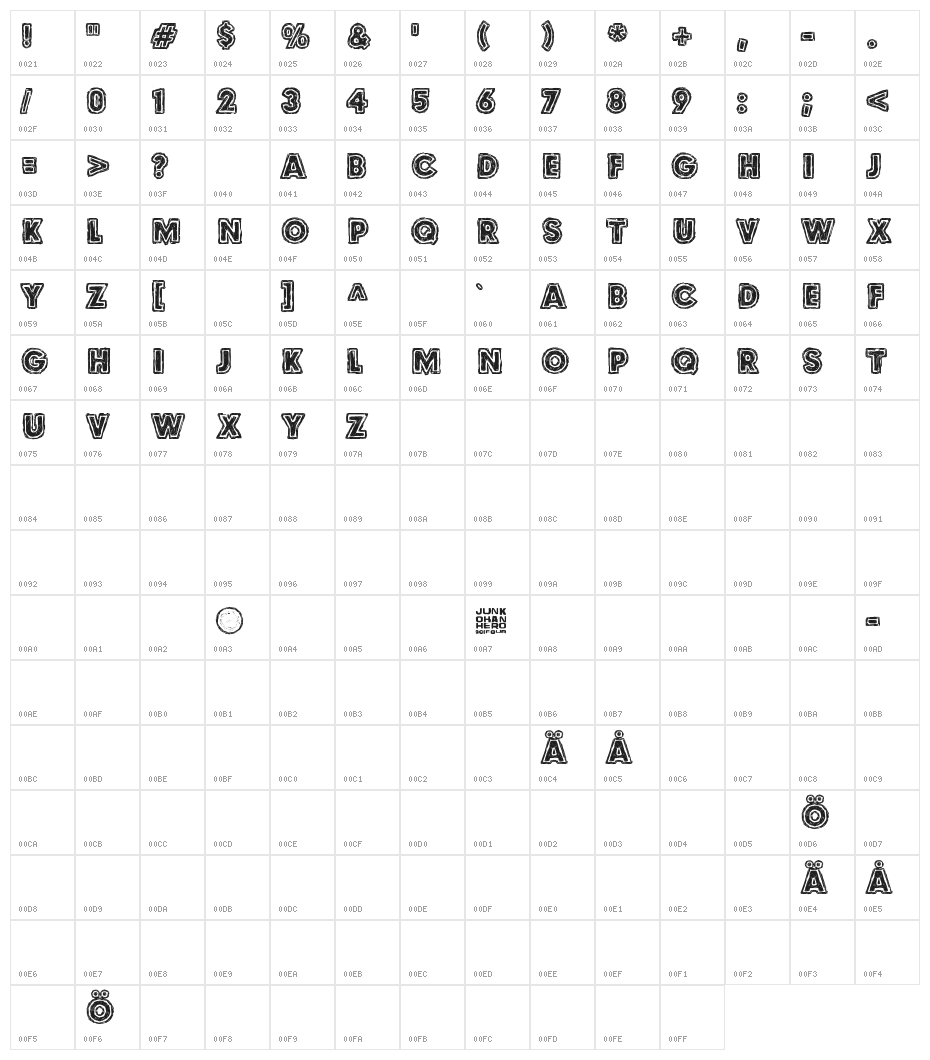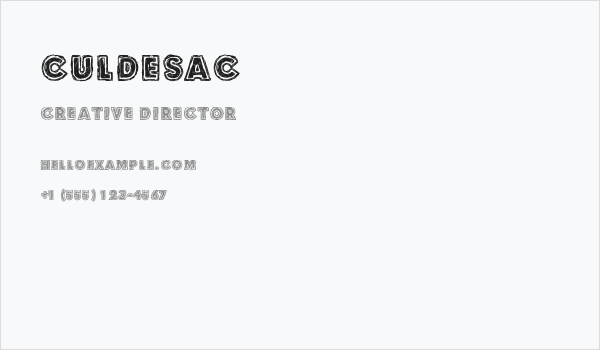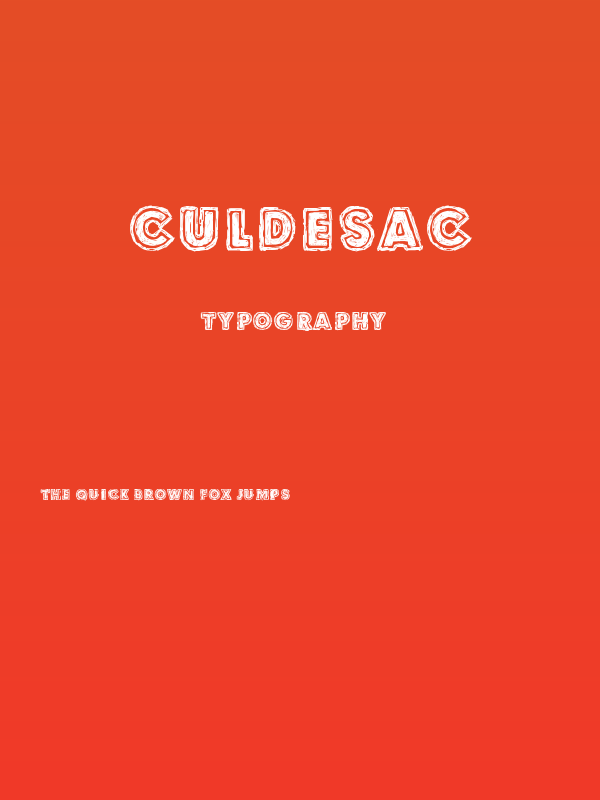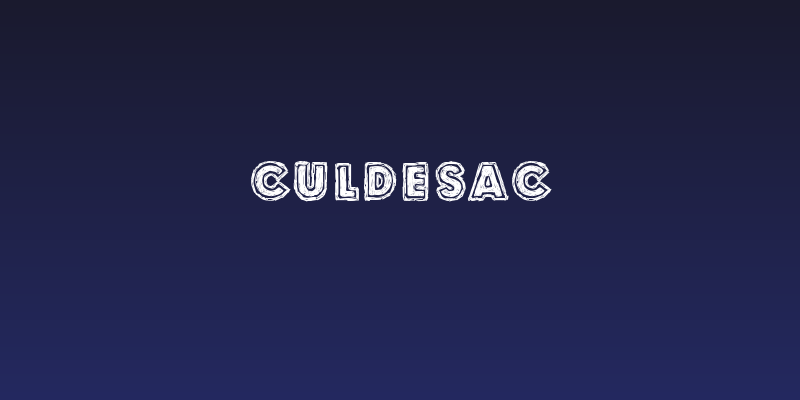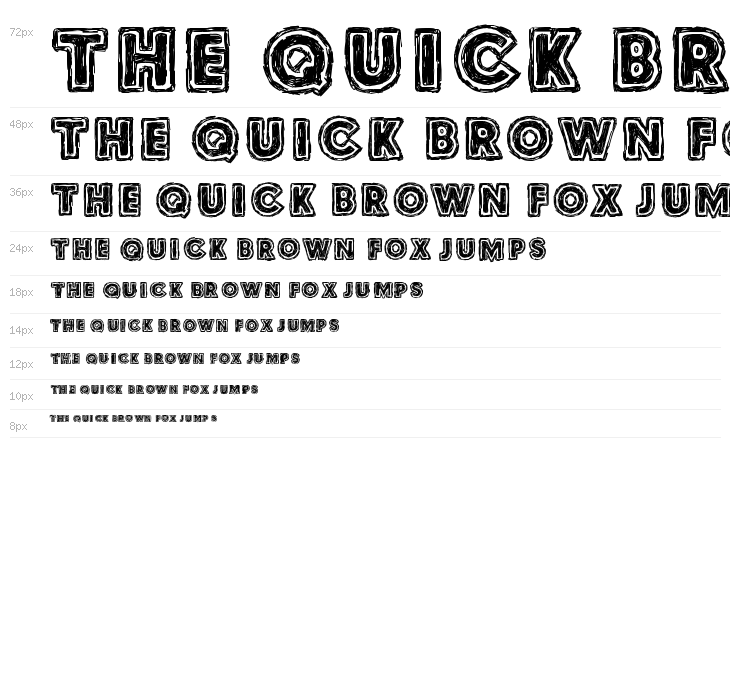
Culdesac Font
Culdesac Description
This font features a bold, playful design with a hand-drawn aesthetic. Each character is outlined with a thick, uneven stroke, giving it a textured and dynamic appearance. The letters are uppercase and lowercase, with numerals and a variety of special characters. The style is reminiscent of chalk or crayon drawings, adding a whimsical and informal touch. The irregular edges and bold outlines make it stand out, suitable for creative and casual projects.
| Overall Style | Playful, Hand-drawn |
| Proposed Projects | Ideal for children's book covers, playful posters, casual branding, and creative social media graphics. |